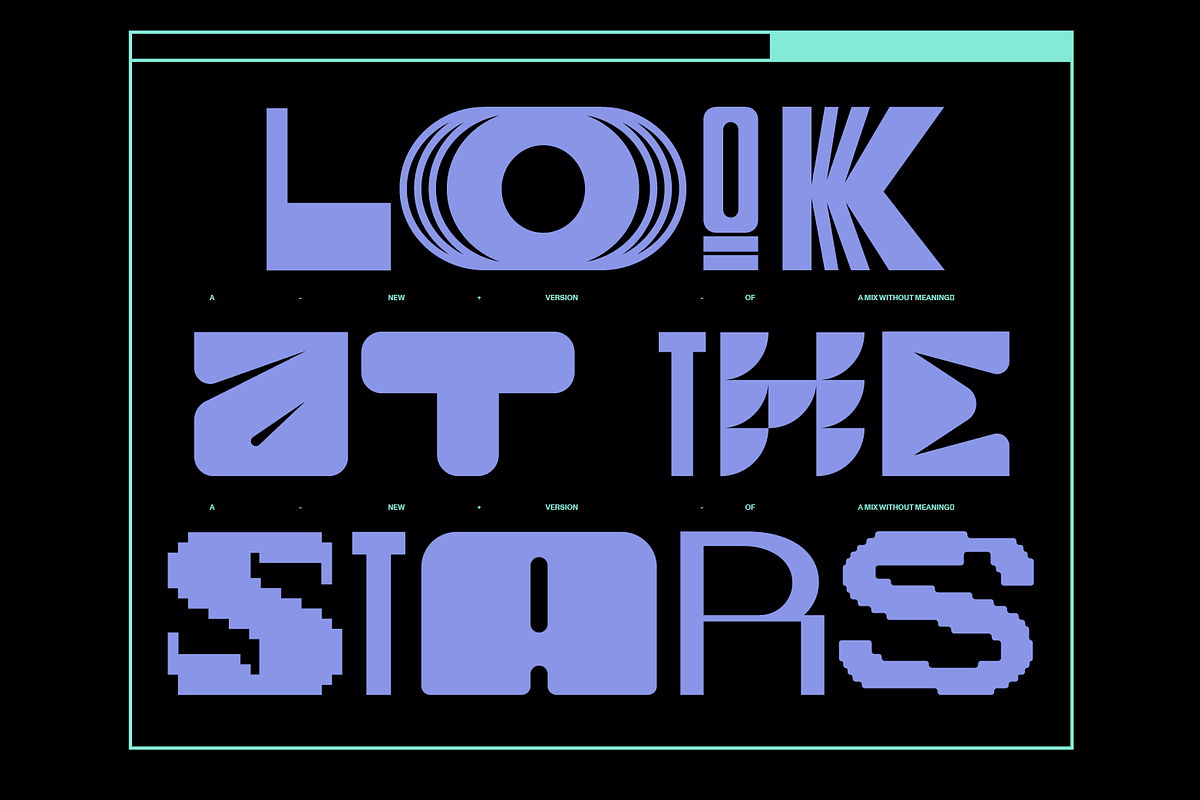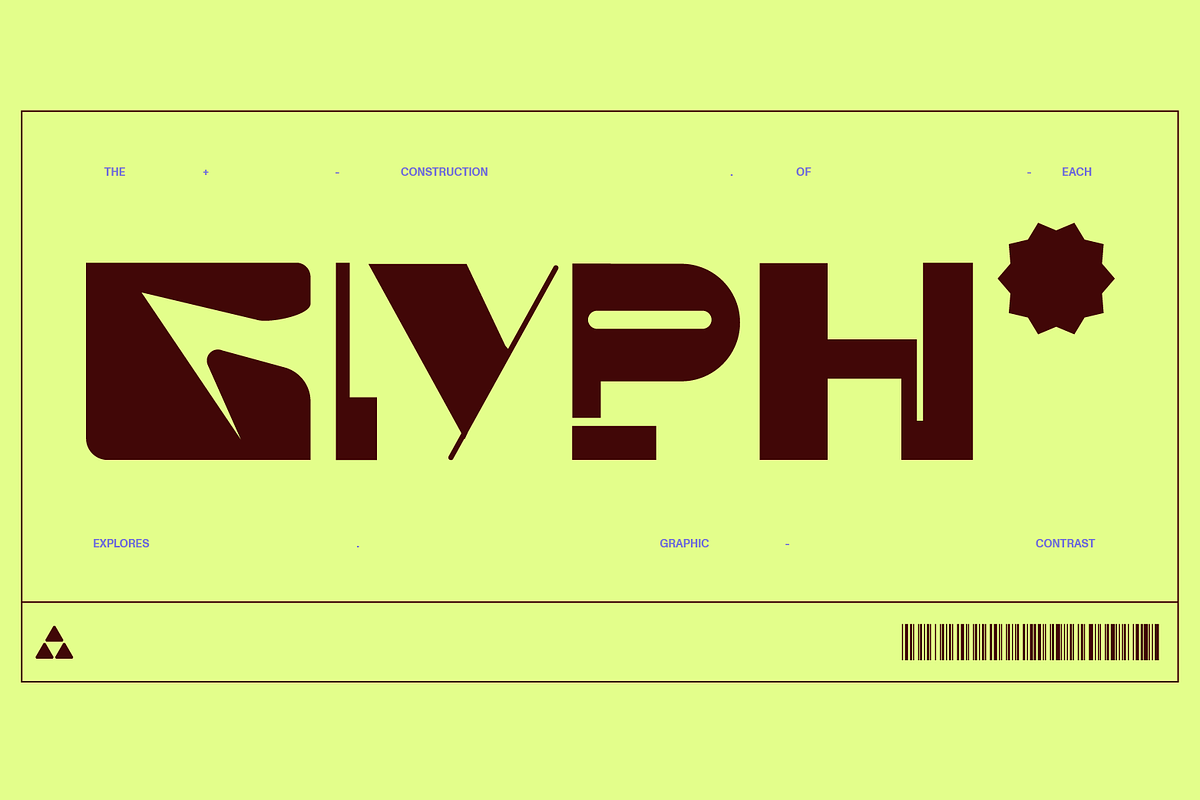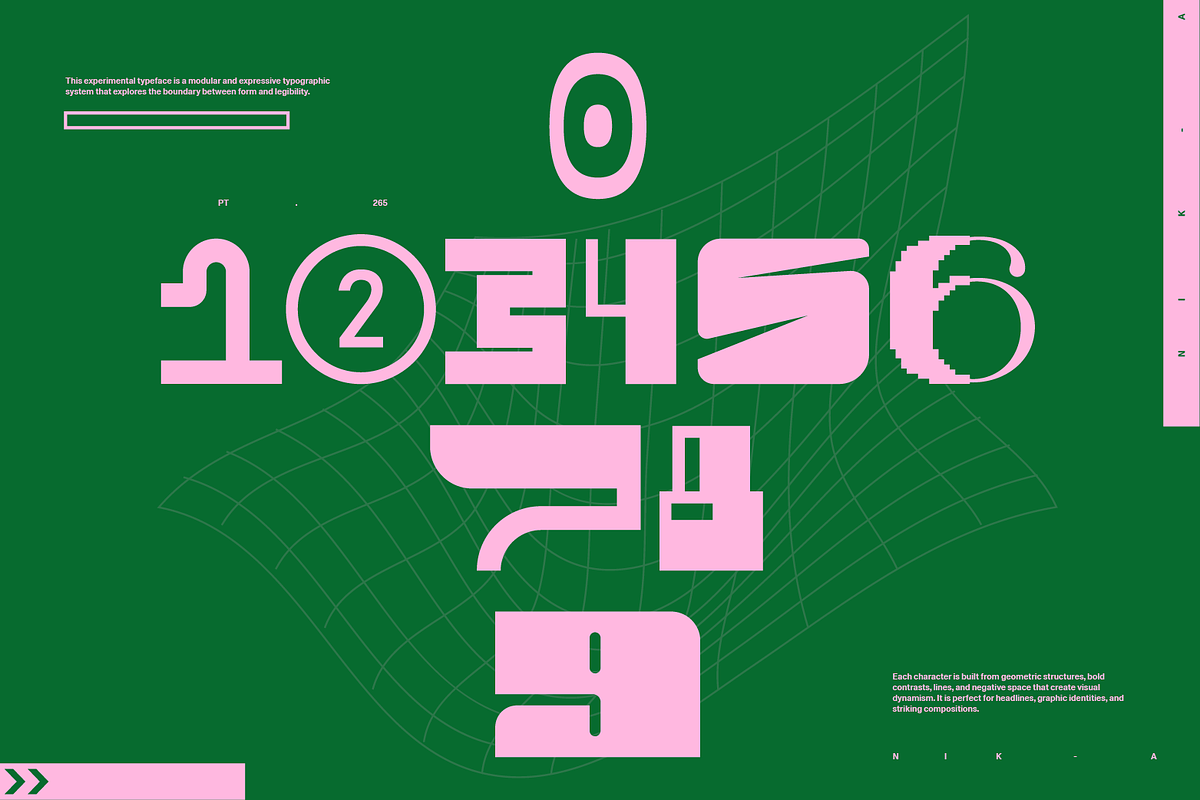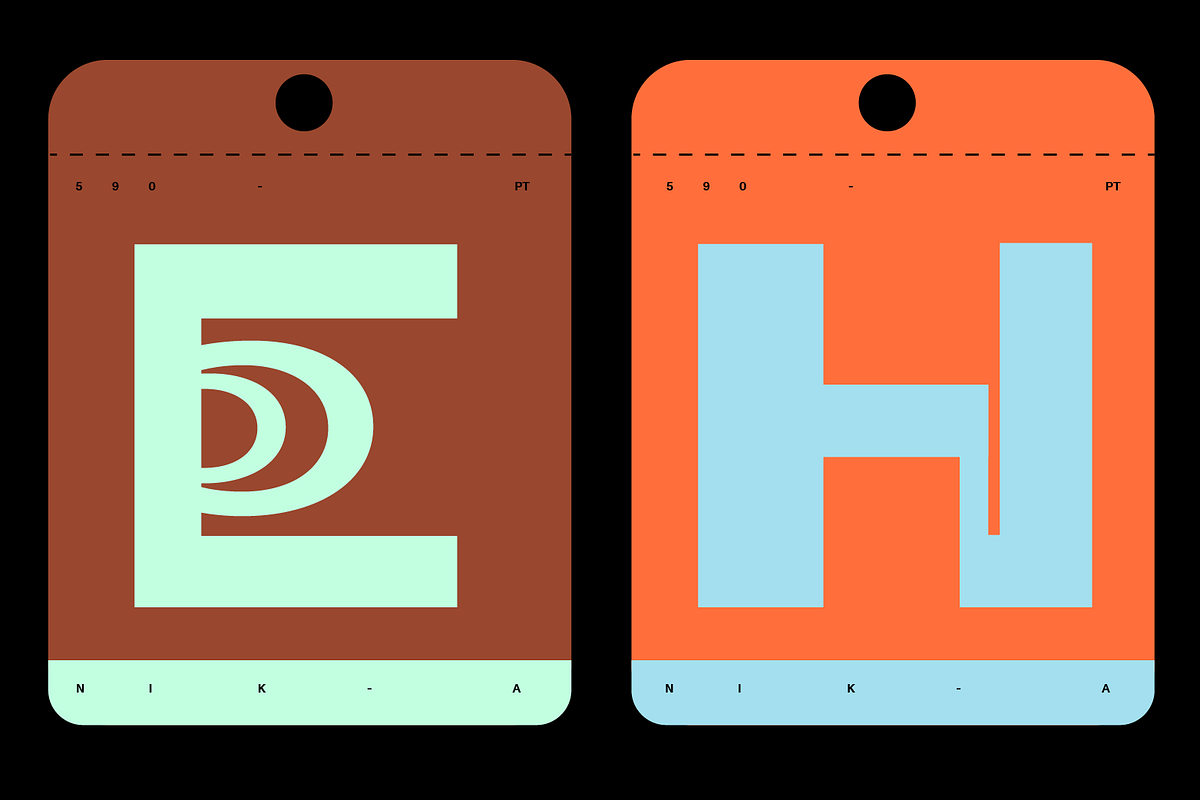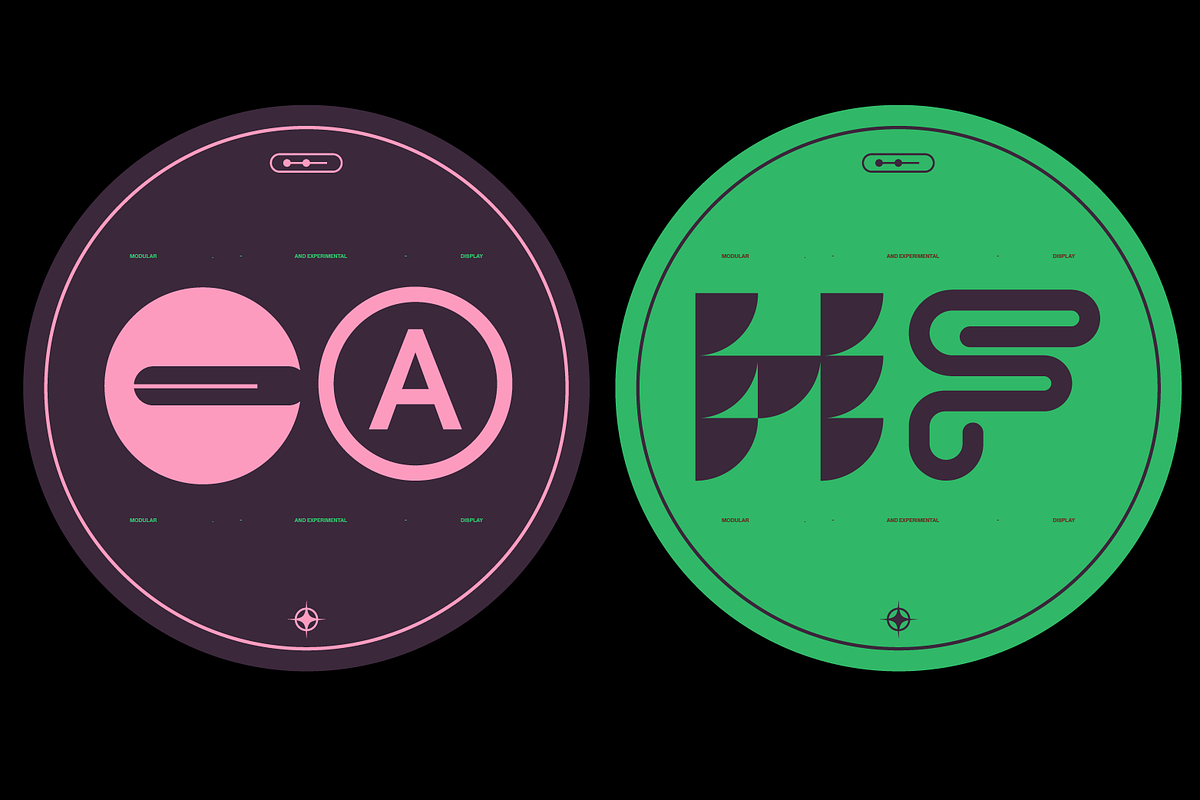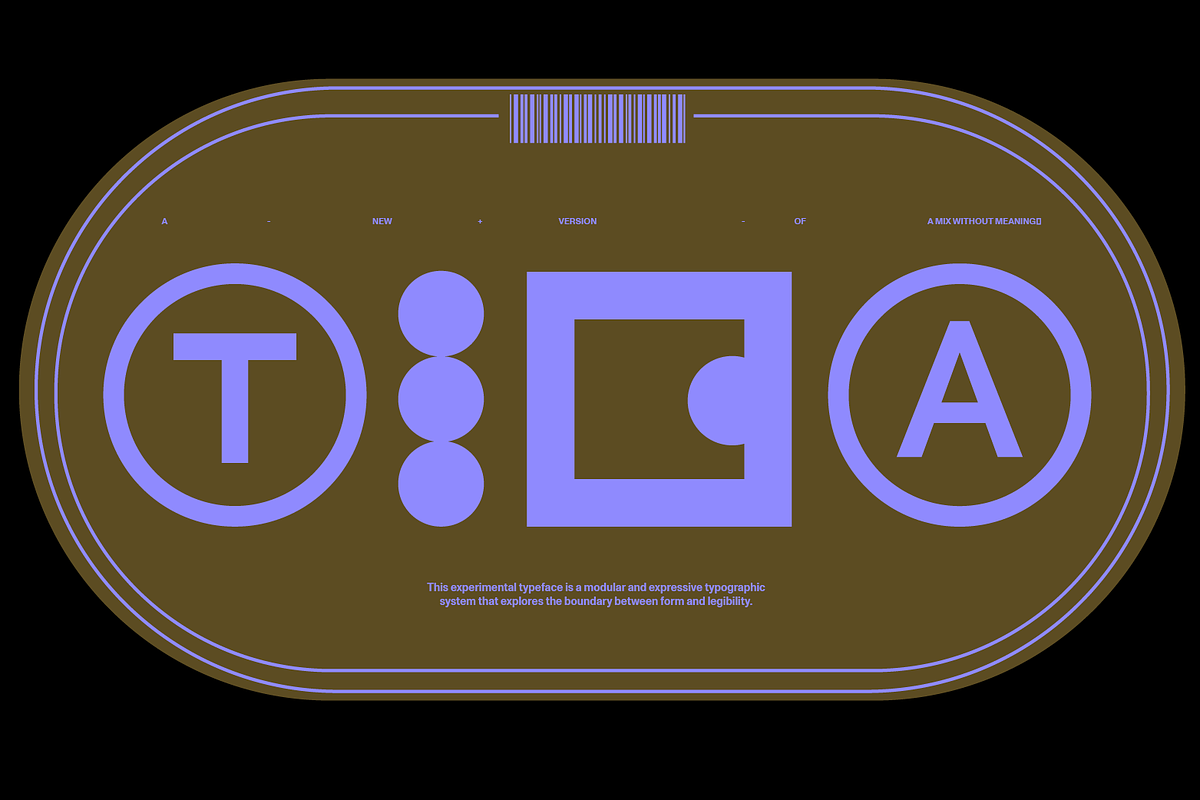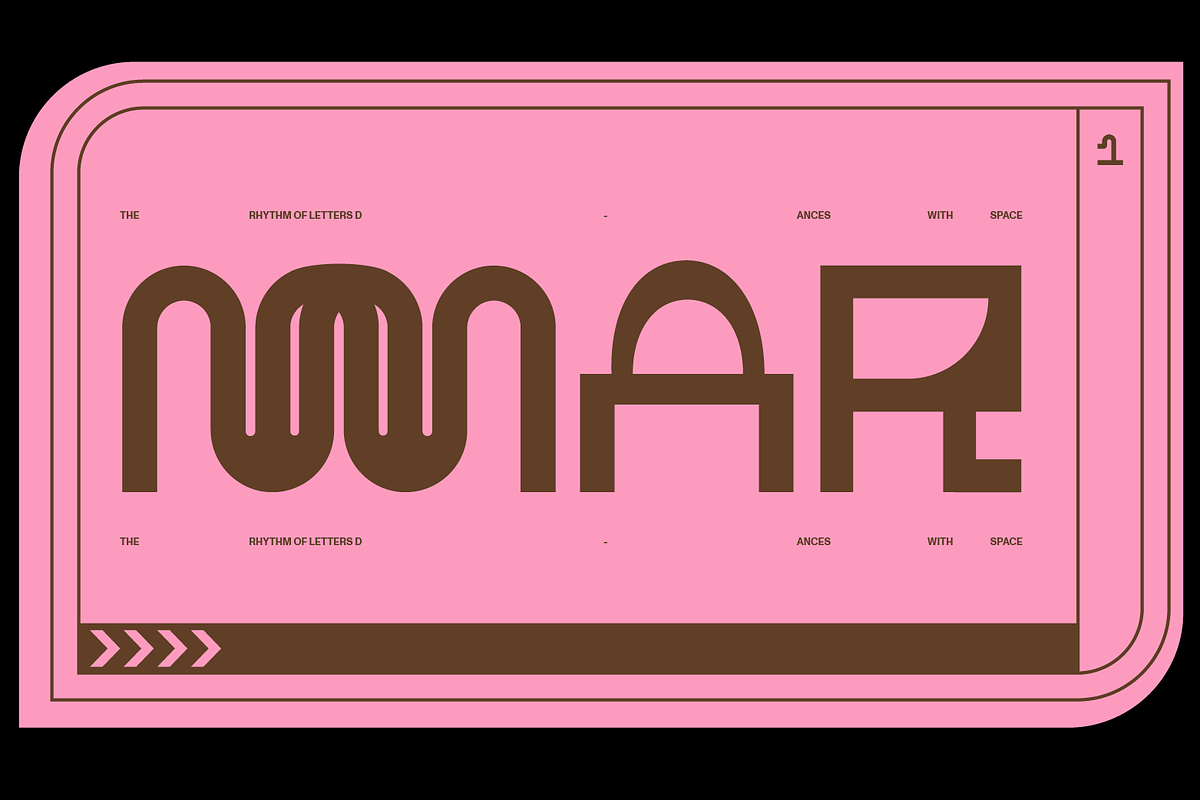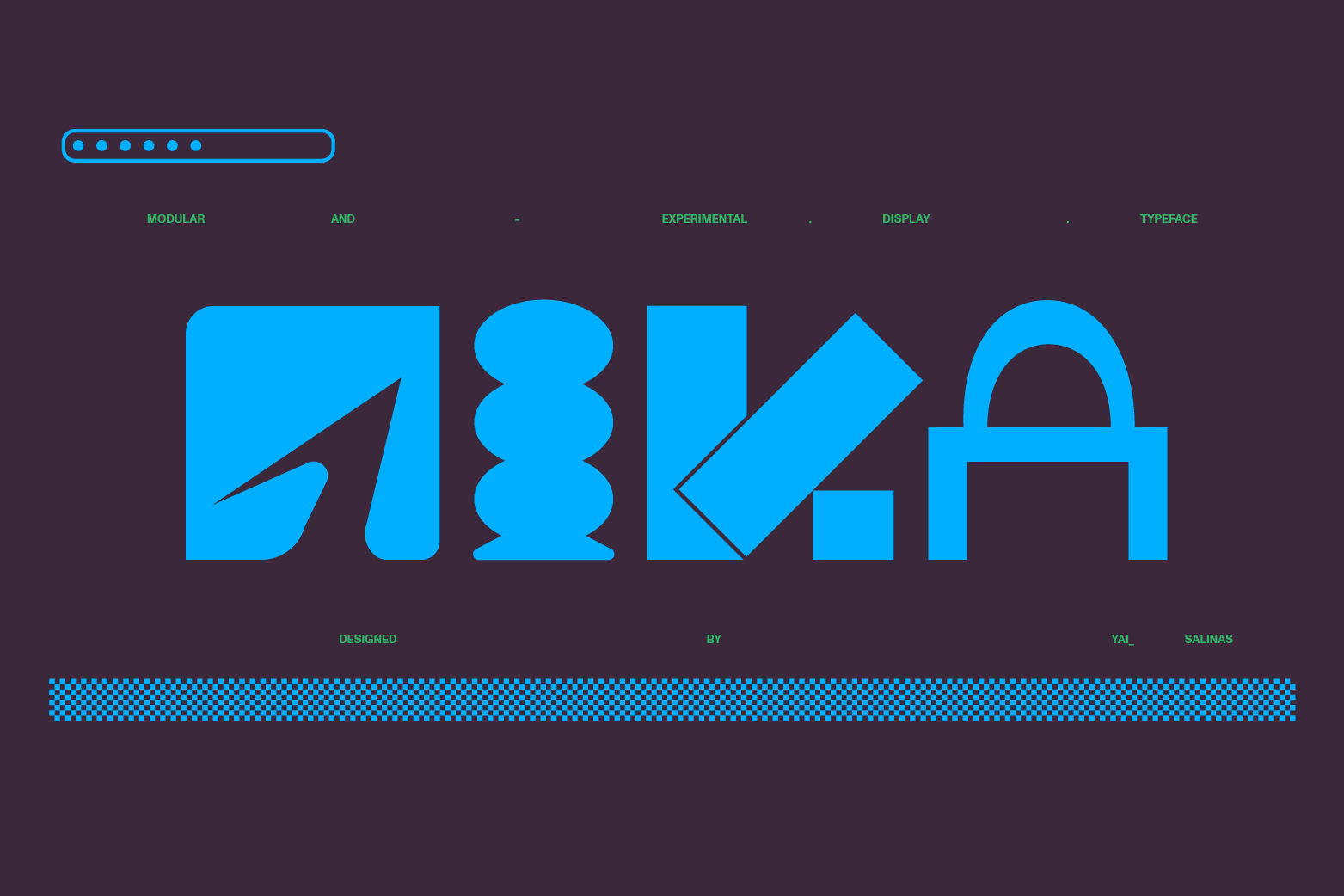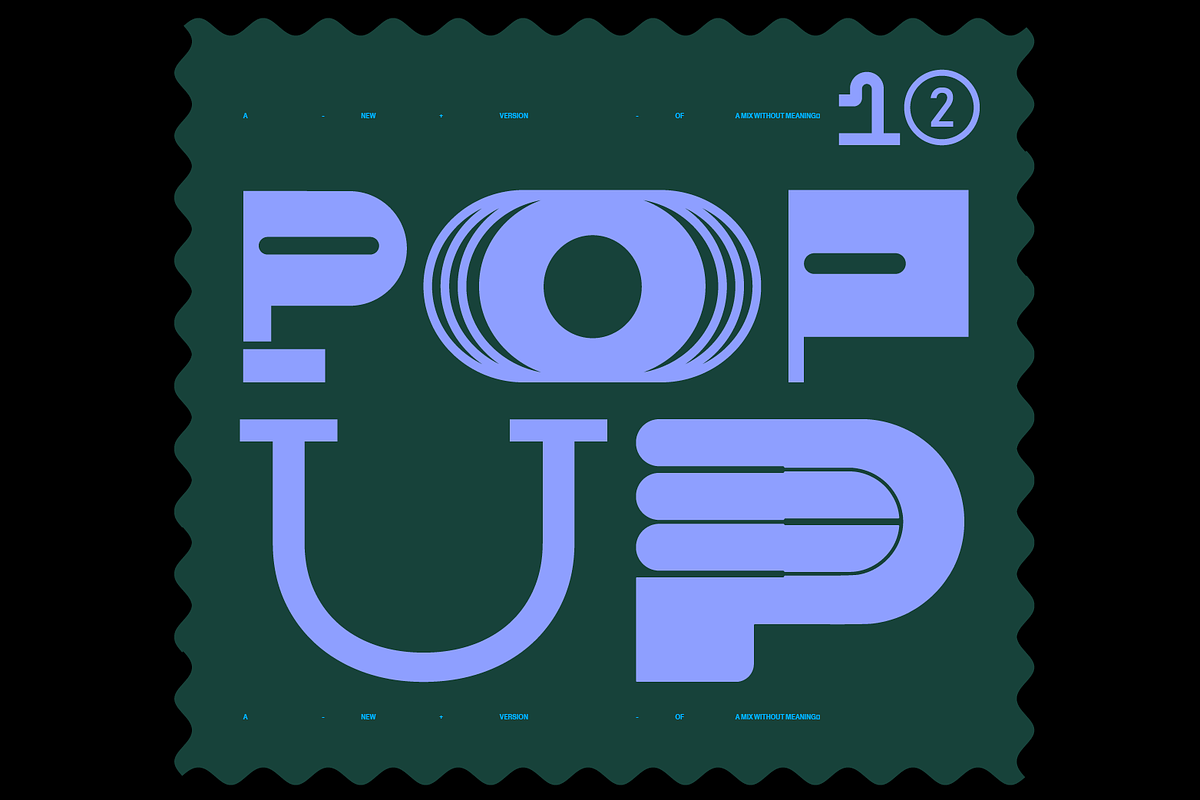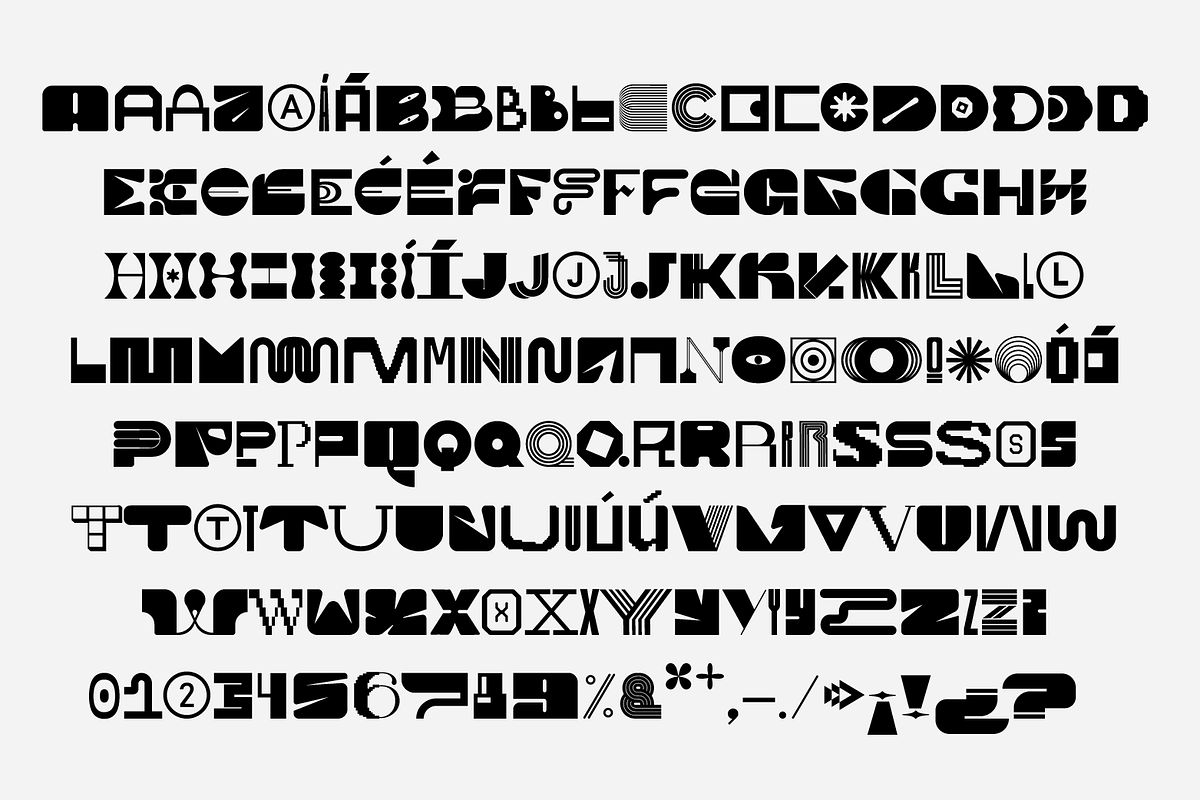
Nika Font
NIKA is a modular and experimental display typeface where each letter becomes a unique glyph. Every character has multiple stylistic variations that can be swapped between uppercase and lowercase, allowing endless combinations and visual rhythms.
This font is designed not just to be read, but to play and provoke. The construction of each glyph explores graphic contrast, texture, and boldness—turning typography into a visual system of its own.
NIKA is perfect for titles, posters, visual identities, and any project that embraces bold design and expressive compositions.